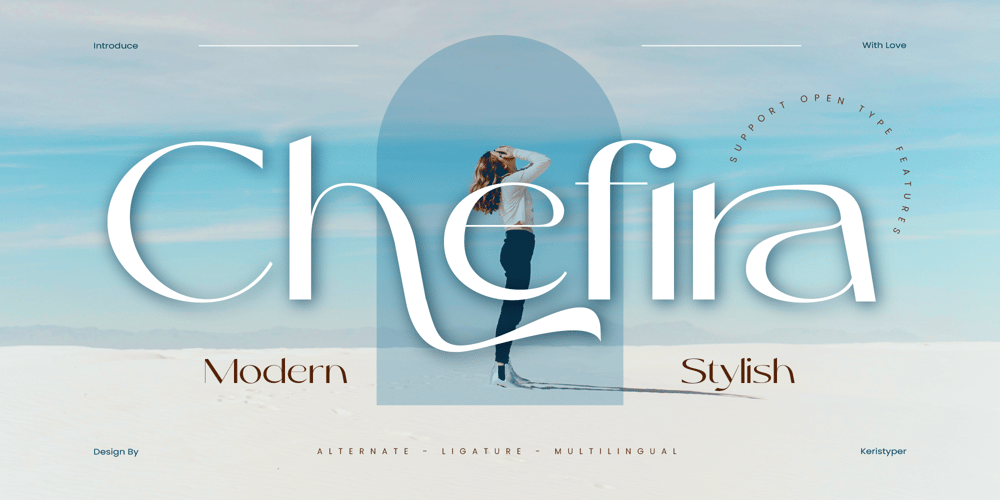
Chefira Font Family was designed by Tezar Tantular and published by Keristyper Studio. Chefira contains 1 styles and family package options. Chefira is a modern and stylish sans-serif font that exudes simplicity and sophistication. With its clean lines and contemporary look, it’s the perfect choice for a wide range of design projects, from branding to editorial design.Featured: Standard, Uppercase & Lowercase Numeral & Punctuation Multilingual : ä ö ü Ä Ö Ü ß ¿ ¡ Alternate & Ligature PUA encoded We recommend programs that support the OpenType feature and the Glyphs panel such as Adobe applications or Corel Draw, so you can use all the variations of the glyphs.Hope you enjoy our fonts!